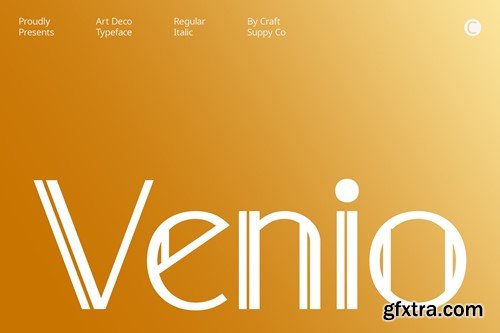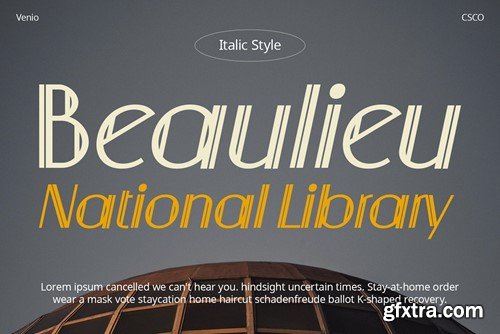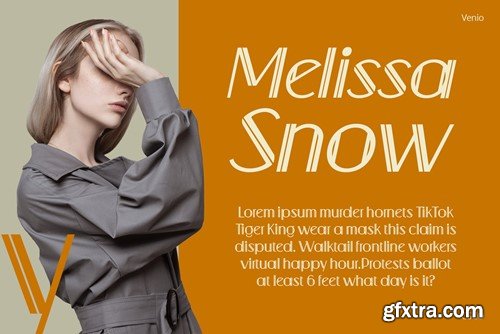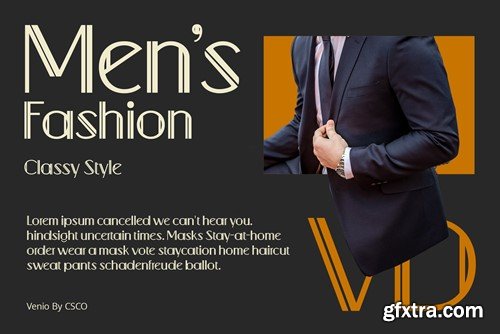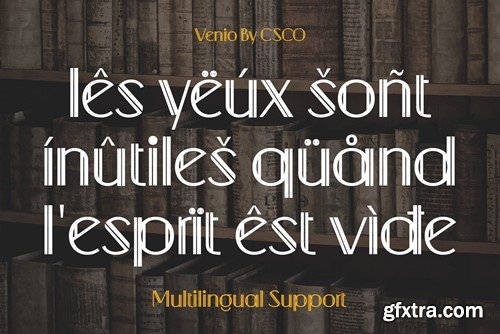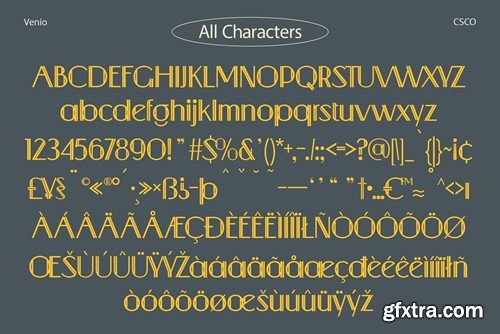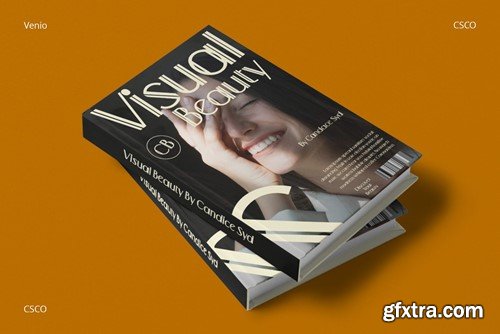
Venio – Double Line Font: Display Typography with Art Deco Flair Deco-inspired Elegance Infused with Art Deco sophistication, Venio, a double-line sans-serif font, brings timeless elegance to your designs. Distinctive Display Presence Venio ensures a bold yet refined aesthetic for logos and headlines, making your display stand out with its distinctive double-line design. Artful Symmetry Paying homage to Art Deco’s geometric precision, Venio’s symmetrical lines provide a visually pleasing experience, adding a touch of artistic flair. Versatility in Design Beyond its Art Deco roots, Venio offers design flexibility, seamlessly adapting to various display purposes, from modern to retro-inspired visuals. What you get : Venio Regular Venio Italic Features : Uppercase & Lowercase Numerals & Punctuations (OpenType Standard) Accents (Multilingual characters) PUA Encoded You can use this typeface without needing any specialized software. If you have any inquiries or need assistance, please feel free to contact us. We appreciate your support in enhancing your creative projects! Best regards, Craft Supply Co.